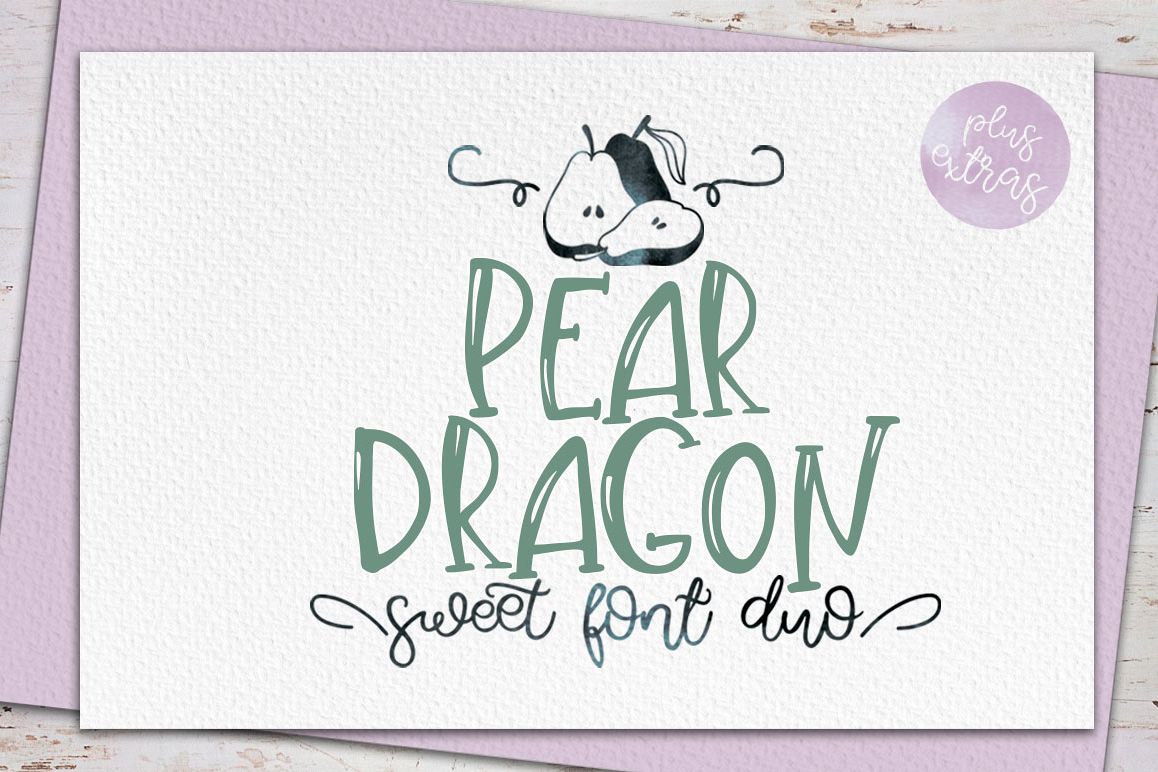
Pear Dragon Sweet font duo includes:
Pear Dragon extras includes 26 swash from a to z
Pear Dragon only small letters
These fonts have multilingual support